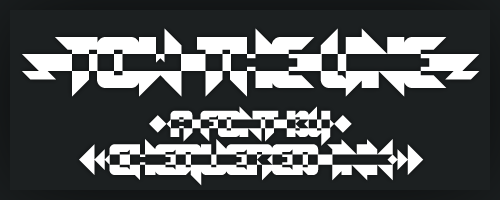
A great entry from dafont star with his unique style )
The jagged outline resulting from letters crossing base line and x-height, the central strip with contrasting background and the choice of banner ends make this a very useful font for effective short headings.
= symbol has extra space after it...
Also, the first word should be Tow, not Toe...